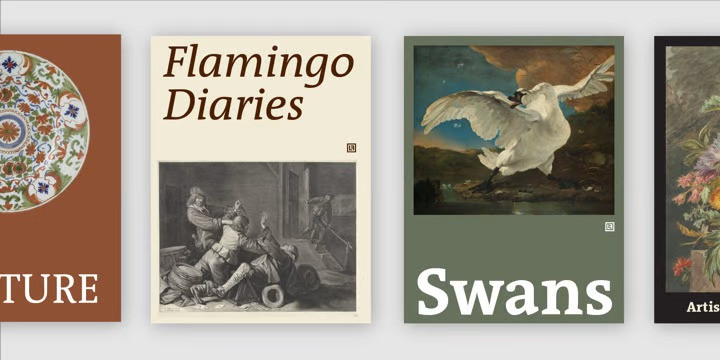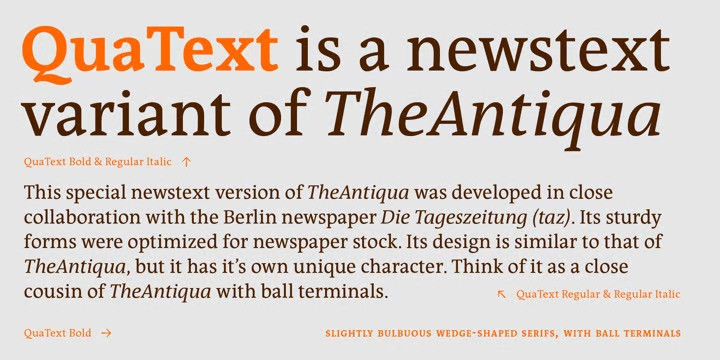
QuaText Font
QuaText Serif Font Family, this special newstext version of TheAntiqua was developed in close collaboration with the Berlin newspaper Die Tages­zeitung (taz). Its sturdy forms were optimized for newspaper stock. This font family is currently being reworked and will be further developed with variable weights that can be adjusted to clients’ specifications.